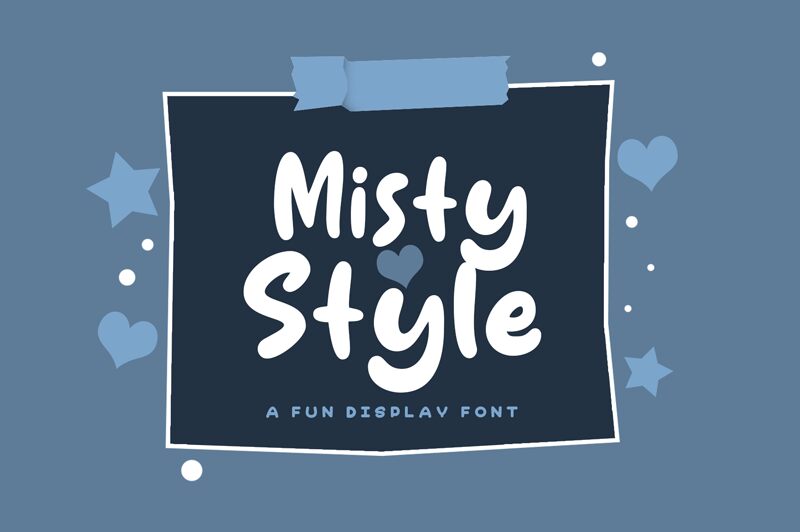
Misty Style
Misty Style Font, designed by Khurasan, is a semi-bold display font that adds a playful and vibrant touch to any creative project.
Its cartoon style and whimsical letterforms make it perfect for capturing attention in headlines, logos, and other design elements that need a pop of personality. Whether you're working on children's book illustrations, packaging design, or event posters, Misty Style Font brings a unique energy to the table that sets it apart from traditional display fonts.
Its bubbly curves and charming details make it suitable for conveying joy and creativity in any visual communication. If you're looking to infuse your designs with a sense of fun and whimsy, Misty Style Font is the perfect choice to add that extra dose of character to your typography.